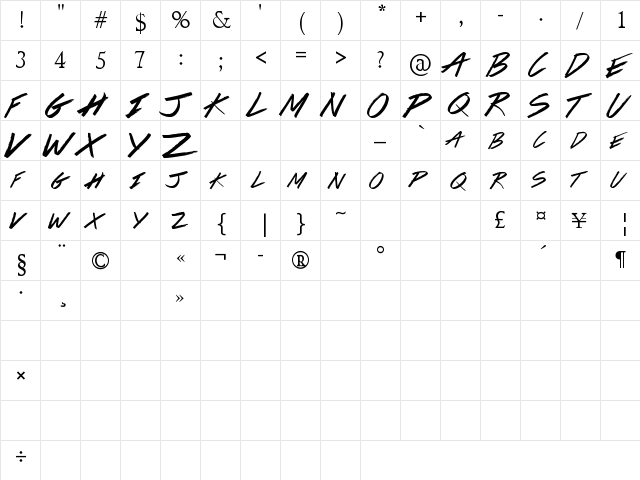
Colors Of Autumn Regular
Design Context for Colors Of Autumn Typeface
Colors Of Autumn is a composed and adaptable typeface that performs quietly and consistently across a wide range of design contexts.